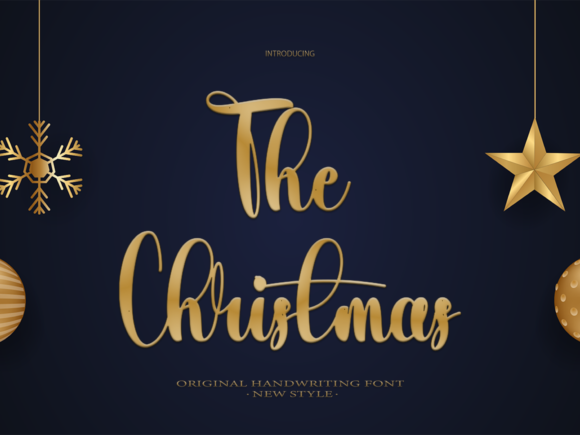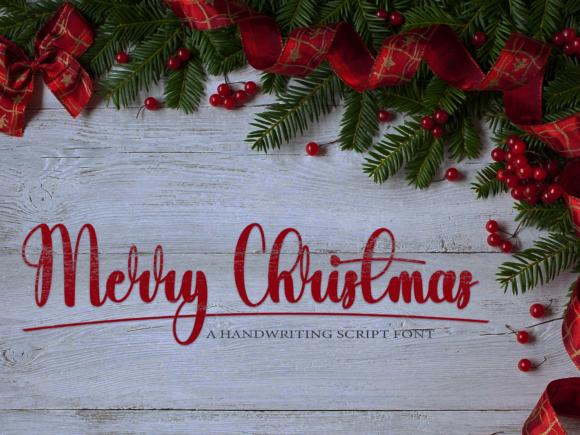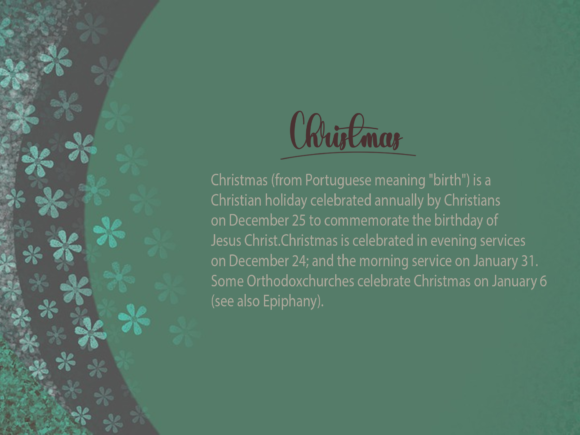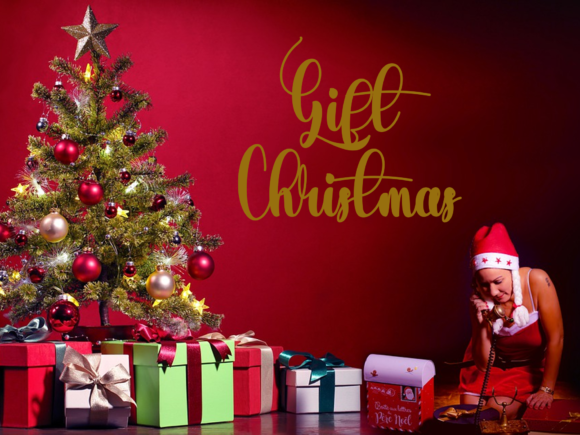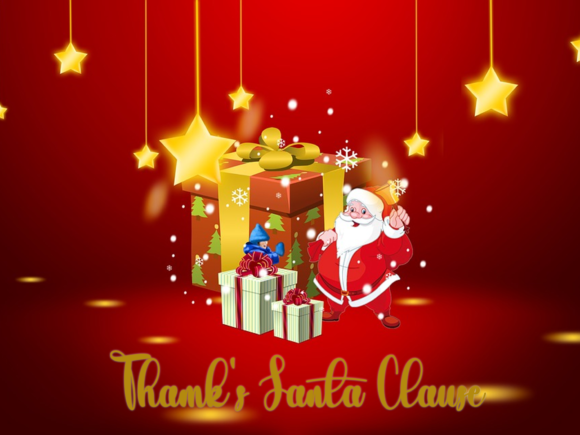
The Christmas Font
About The Christmas Font
The Christmas is a handwritten font that is made with thoroughness to produce the font as expected. This font can be used for writing a wide variety of products according to their individual needs.